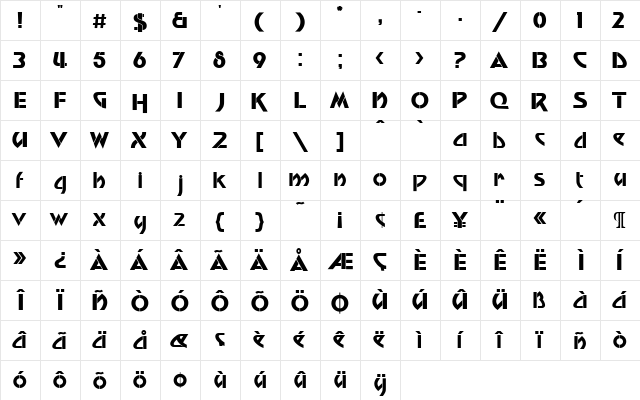
Breadline Regular
Design Context for Breadline Typeface
Breadline is a composed and adaptable typeface that performs quietly and consistently across a wide range of design contexts.